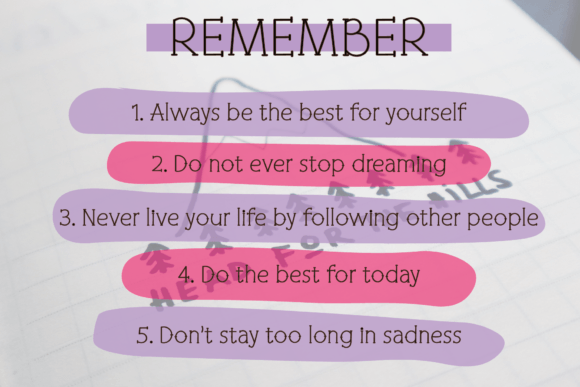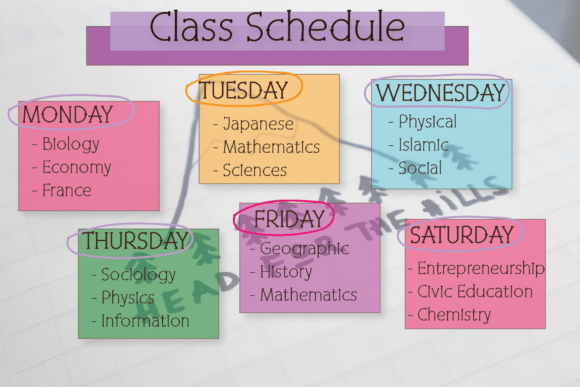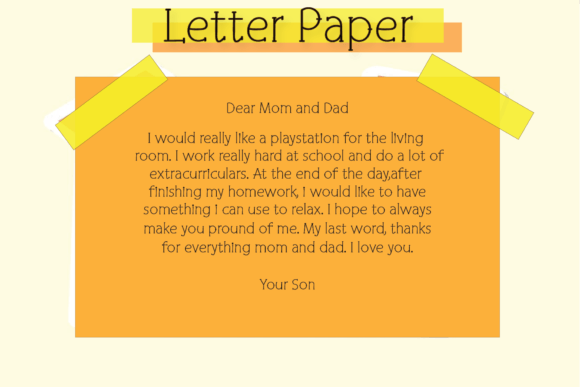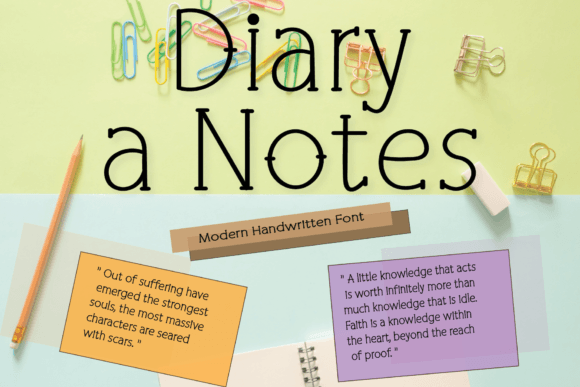
Introduction to Diary a Notes Font
Diary A Notes is a fun and friendly serif font with a modern impression.
It looks stunning on greeting cards, business cards, logos, product packaging, advertisements, quotes, and any other design that needs a cheerful look .
Key Features of Diary a Notes Font